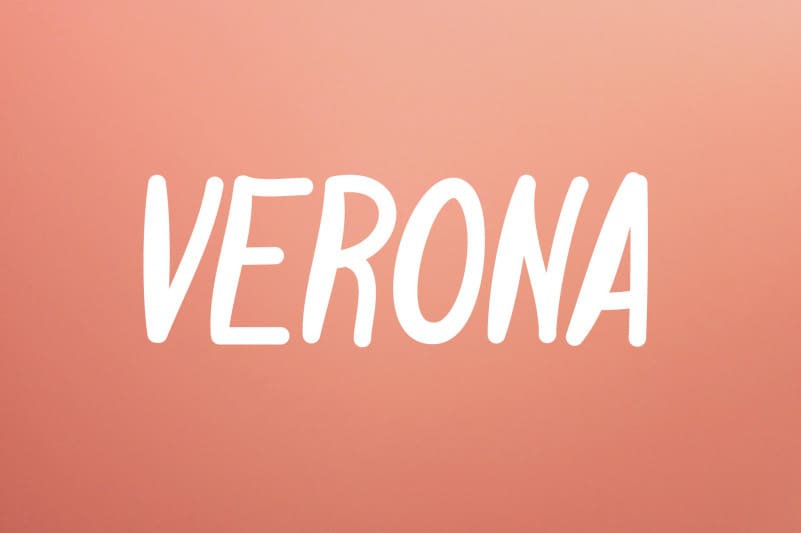
Verona Display Font
Verona Display Font is a font that works on every occasion. It has surprisingly good readability and legibility for script font.
Also the other great advantage is that it works well in tight spaces especially if you need to use long words in your designs.